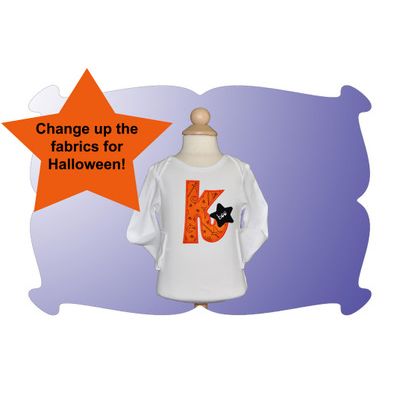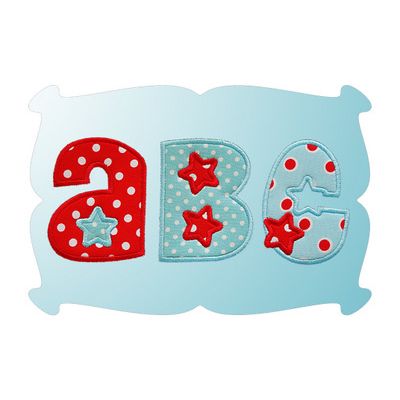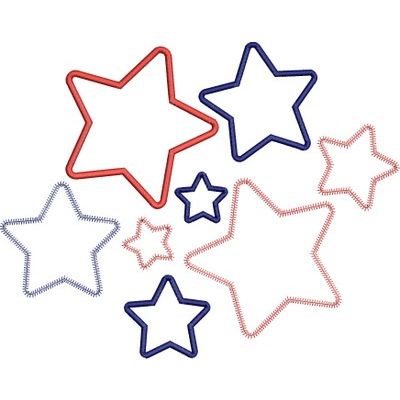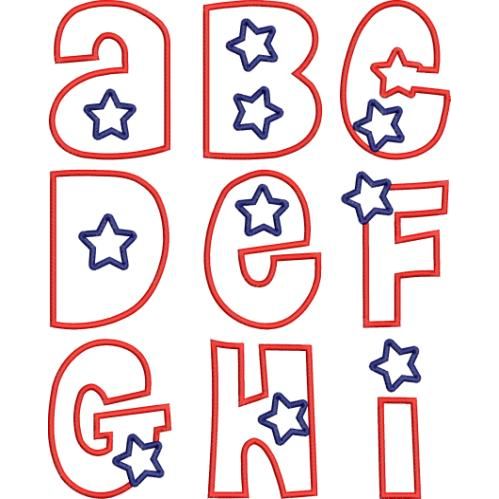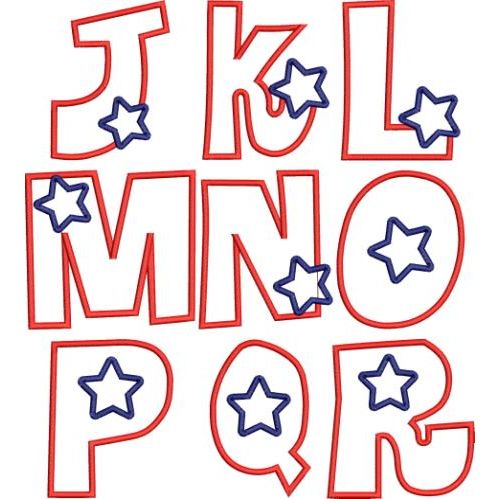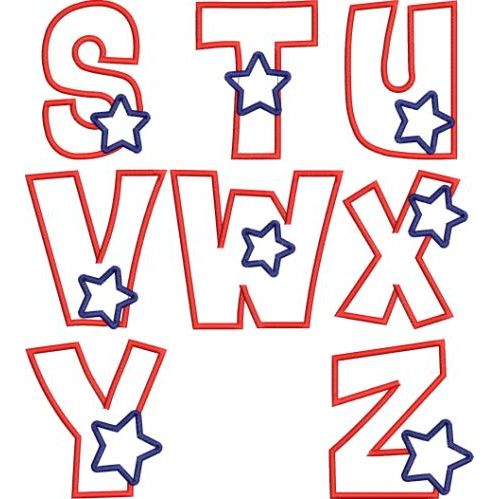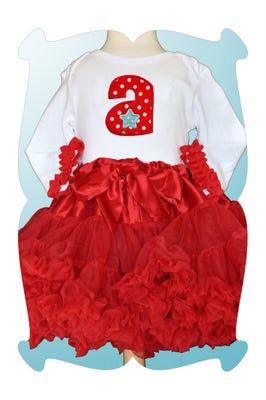
Super Star Applique Font
...a "super" font for boy and girls!
2 finishing styles: satin, zig zag
Combination of upper and lower case letters for a total of 26 letters, A thru Z, as shown below.
3 sizes: 3.5, 4.5 and 5.5 inches.
Although this font is "super" cute for Halloween, Memorial Day, July 4th and Labor Day festivities.
It's also cute anytime you want to make something special for your little "super star".
The font is a cute combination of upper and lower case letters for a total of 26 letters, A thru Z, as shown below.
It comes in both satin and quick and easy zig zag stitches in 3 sizes: 3.5, 4.5 and 5.5 inches.
Also included are applique stars in 4 sizes 1.5, 2.5, 3.5 and 4.5.
Both satin and quick and easy zig zag stiches are included too!